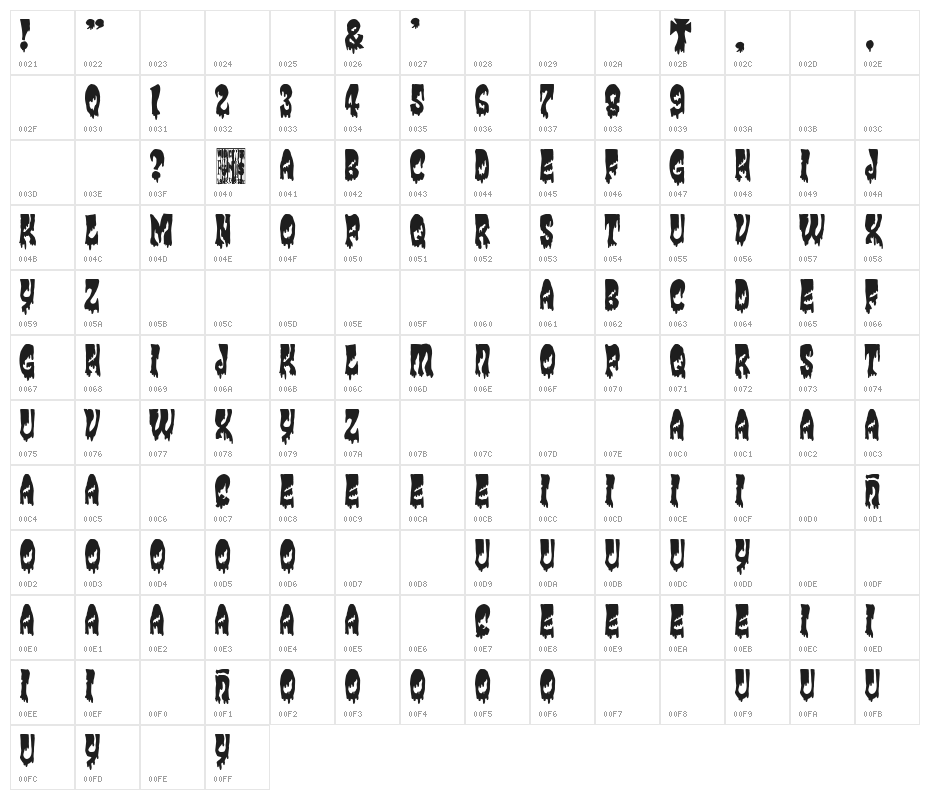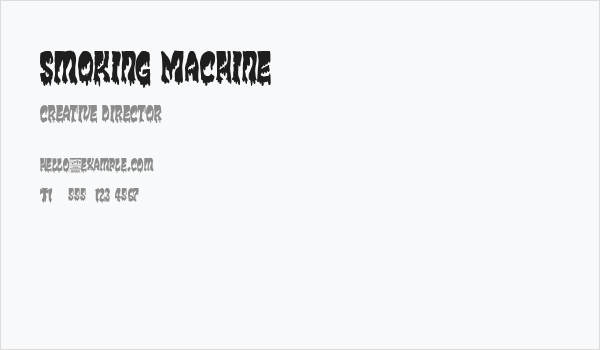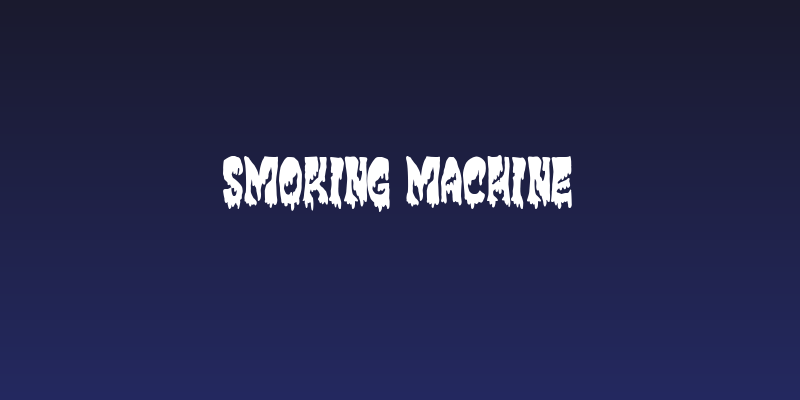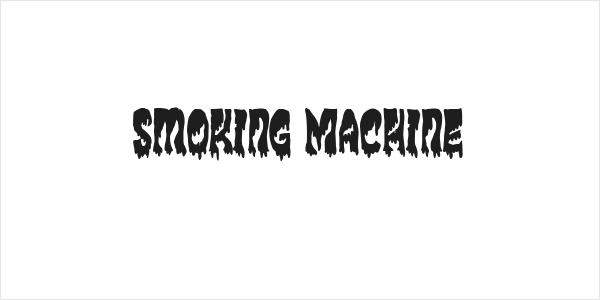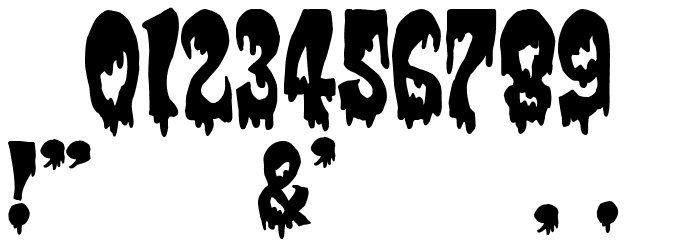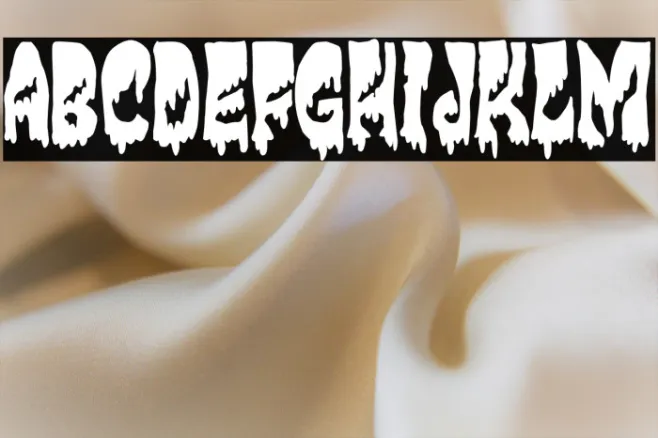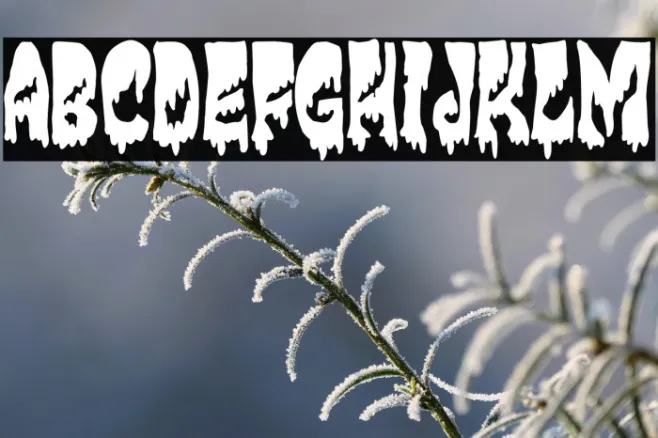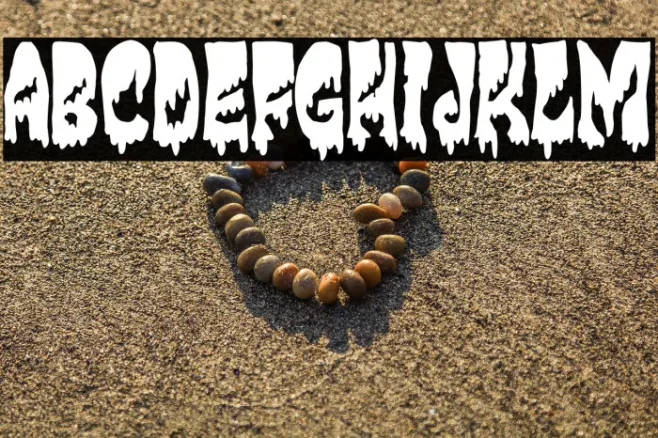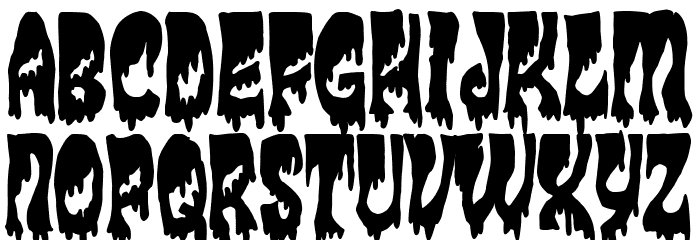
Smoking Machine Font
Smoking Machine Description
This font features a bold and dramatic style with a dripping effect that gives it a unique, eerie appearance. The characters are heavily stylized, with thick strokes that create a sense of movement and fluidity. The uppercase and lowercase letters maintain a consistent design, enhancing the cohesive look of the typeface. Numbers and special characters follow the same aesthetic, making it suitable for thematic designs. The font's distinct appearance makes it ideal for projects that require a strong visual impact, such as Halloween-themed graphics or horror movie posters.
| Proposed Projects | Ideal for Halloween graphics, horror movie posters, and spooky event invitations. |